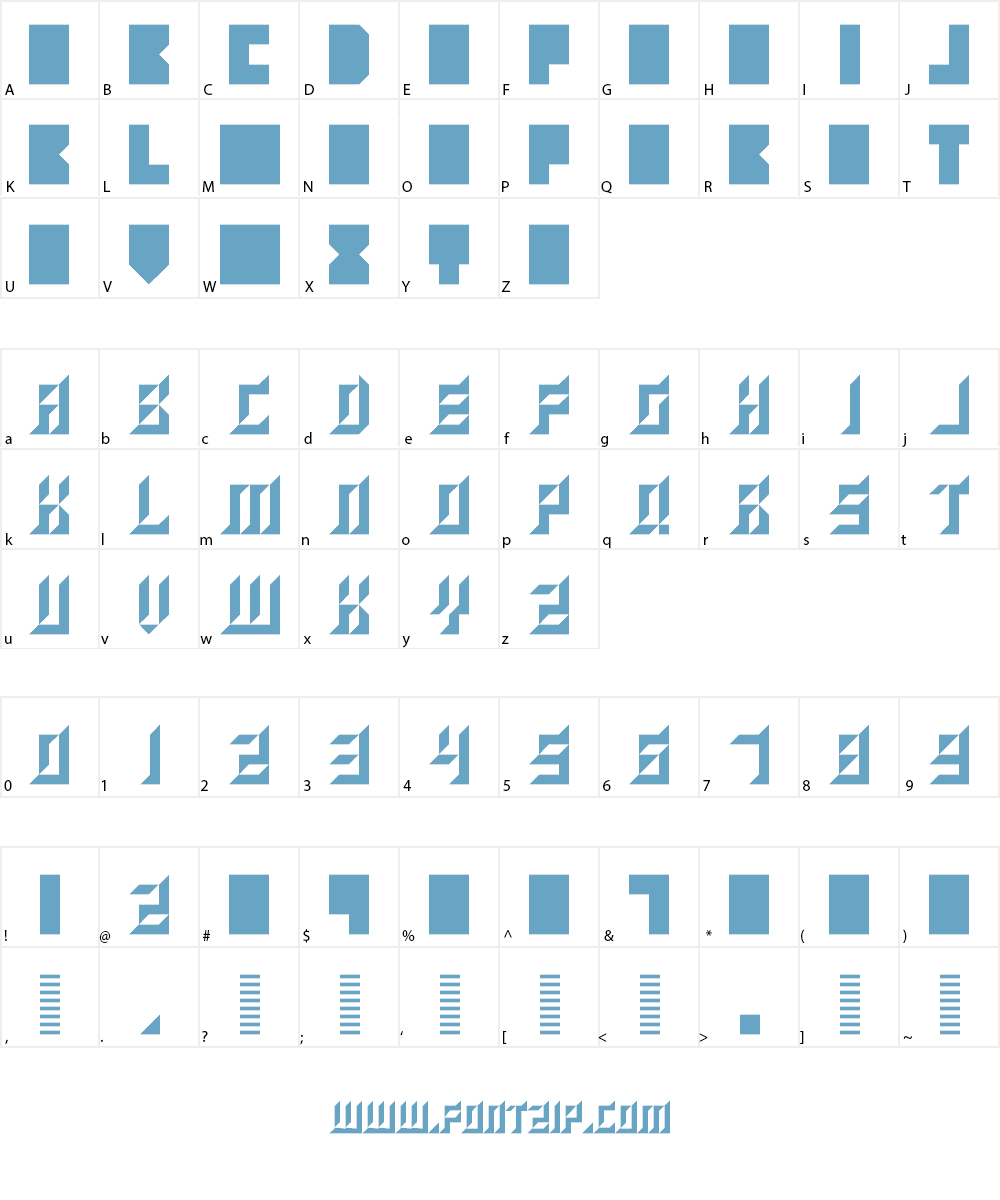
Helpful Information All About This Nifty Typeface Your features may not be chiselled but your typography can be. And with this face (not the kind with eyes and lips) tones and/or color are easily added on the fly (not the kind with wings and sticky feet). The lowercase letters create the shadowed portion of each character while the uppercase provides a mask which becomes the "lit" portion. Text is typed in lowercase, then it is duplicated and placed behind the original text box. The color of the duplicated text is changed and then you're cooking up some 3D, baby! All letters are uppercase. Numbers' masks are created by pressing SHIFT plus the number. The only other character provided is the period (because you've gotta have a dot in this dot com world).